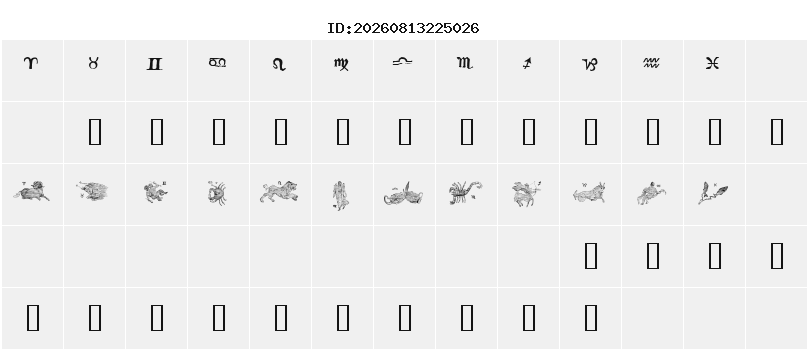
signs of the zodiac Preview
• Font Name: signs of the zodiac
• Font ID: mollusks two, emerald city fontwerks clipfont #54
• Full Font Name: signs of the zodiac
• PostScript Name: Signsofthezodiac
About signs of the zodiac.ttf